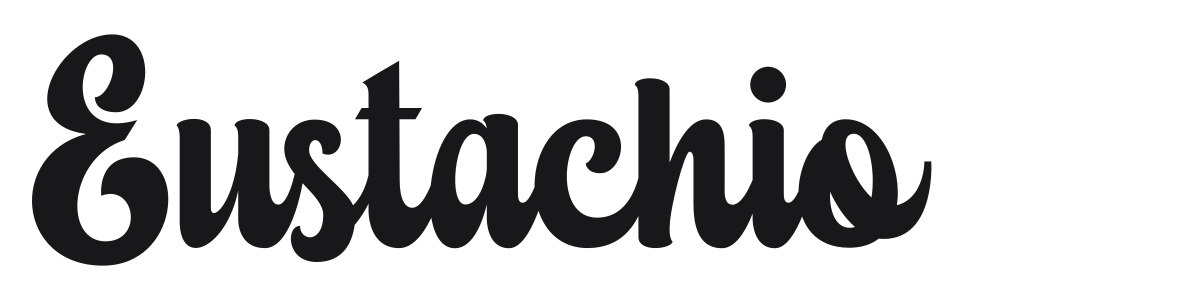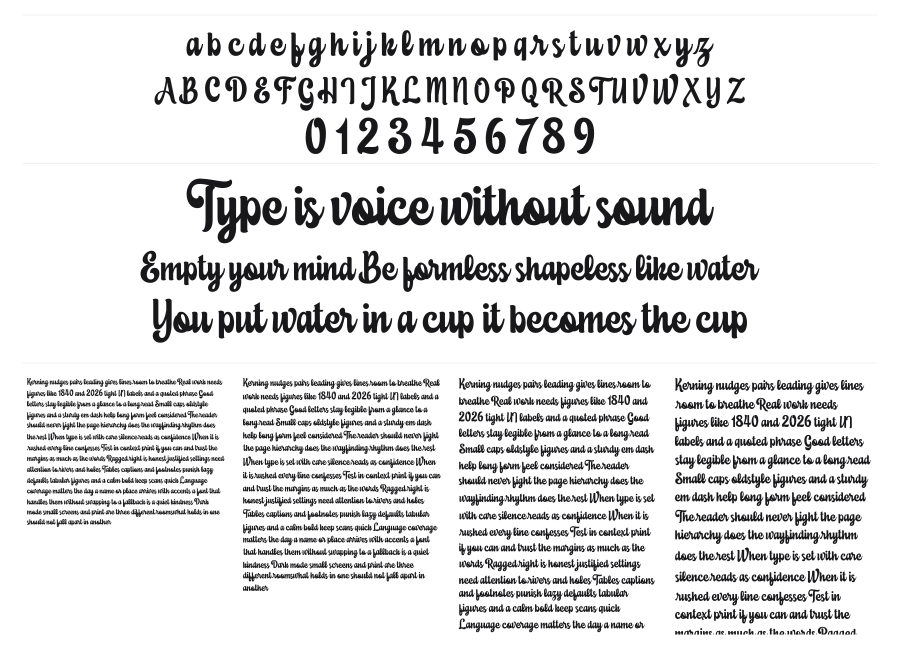
Eustachio
Eustachio is a bold casual script with thick, flowing strokes and a warm retro personality. Characters connect smoothly in a continuous cursive ribbon, with rounded terminals and a slight bounce that keeps it feeling handmade rather than mechanical. It works best at large sizes where the weight and rhythm can breathe.